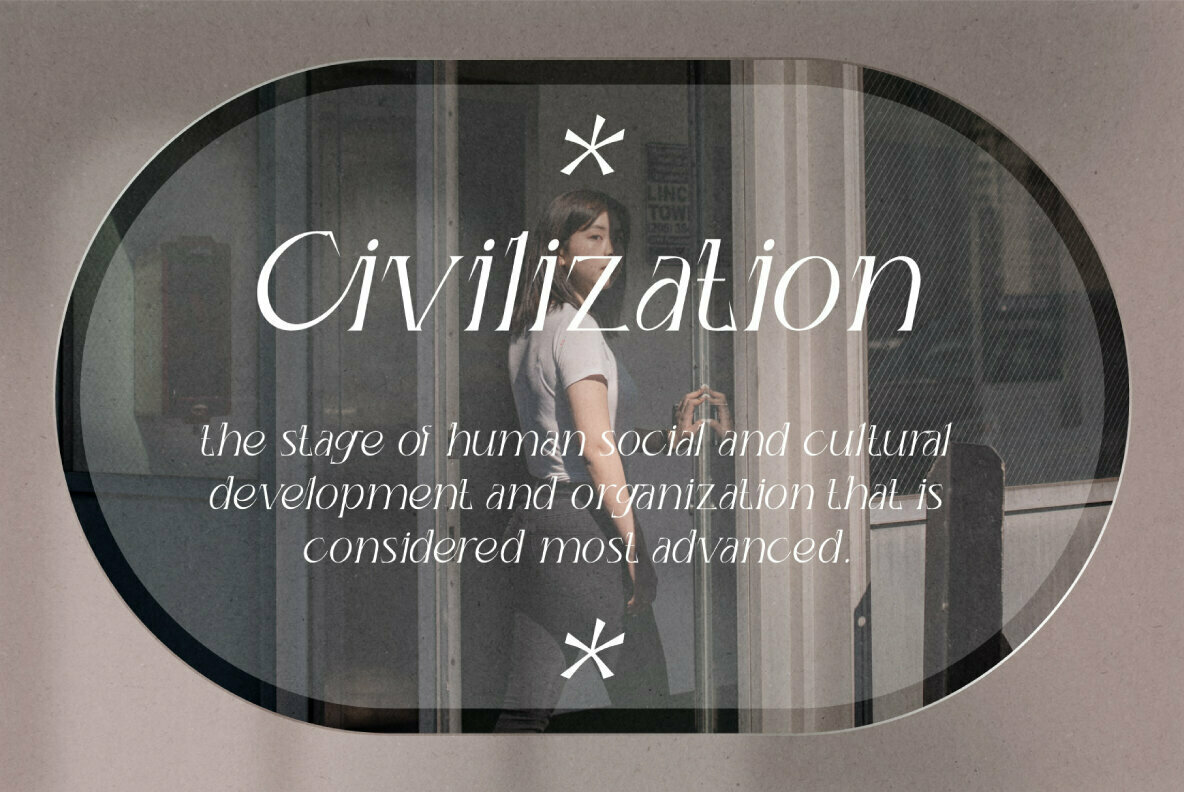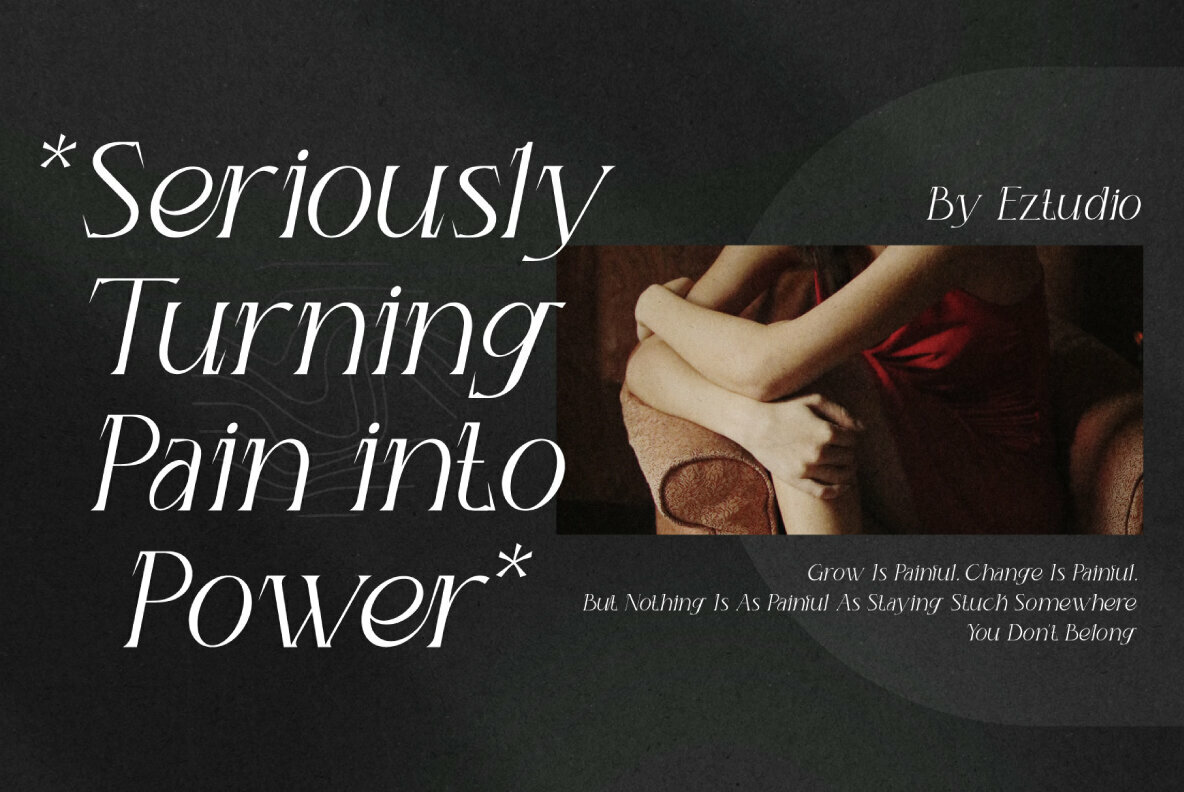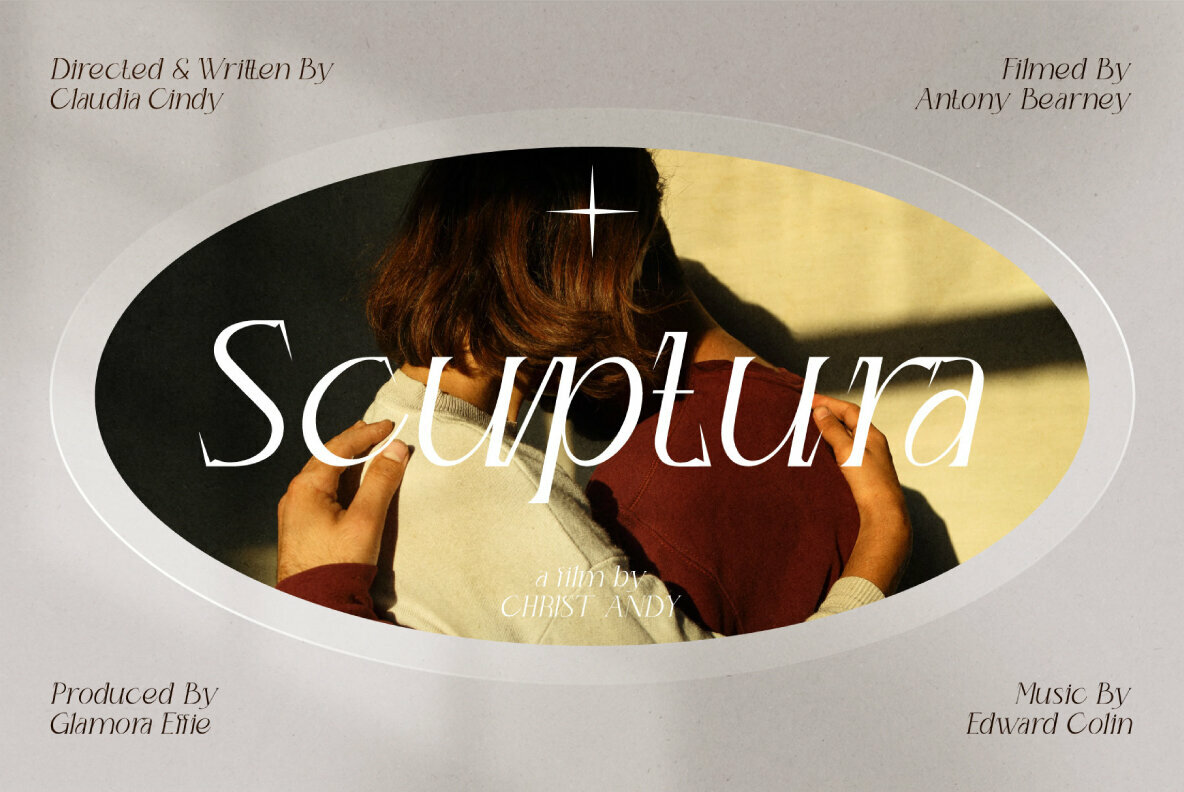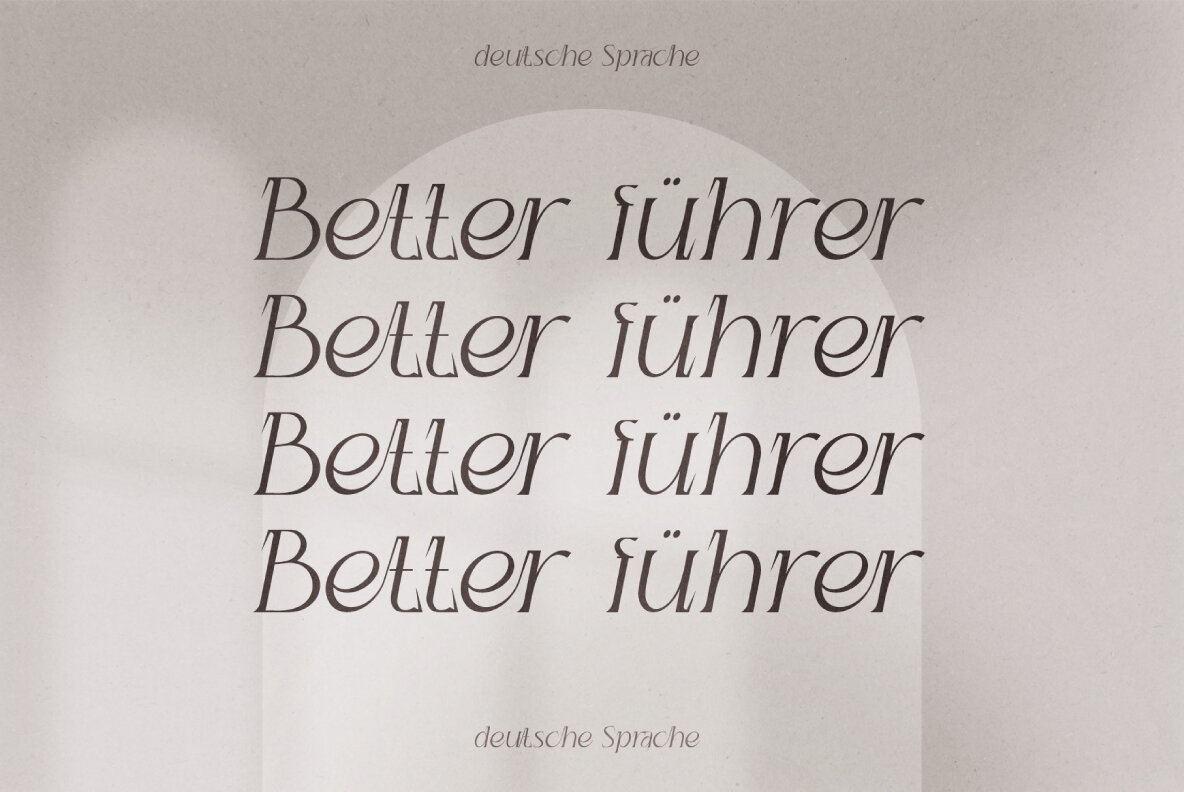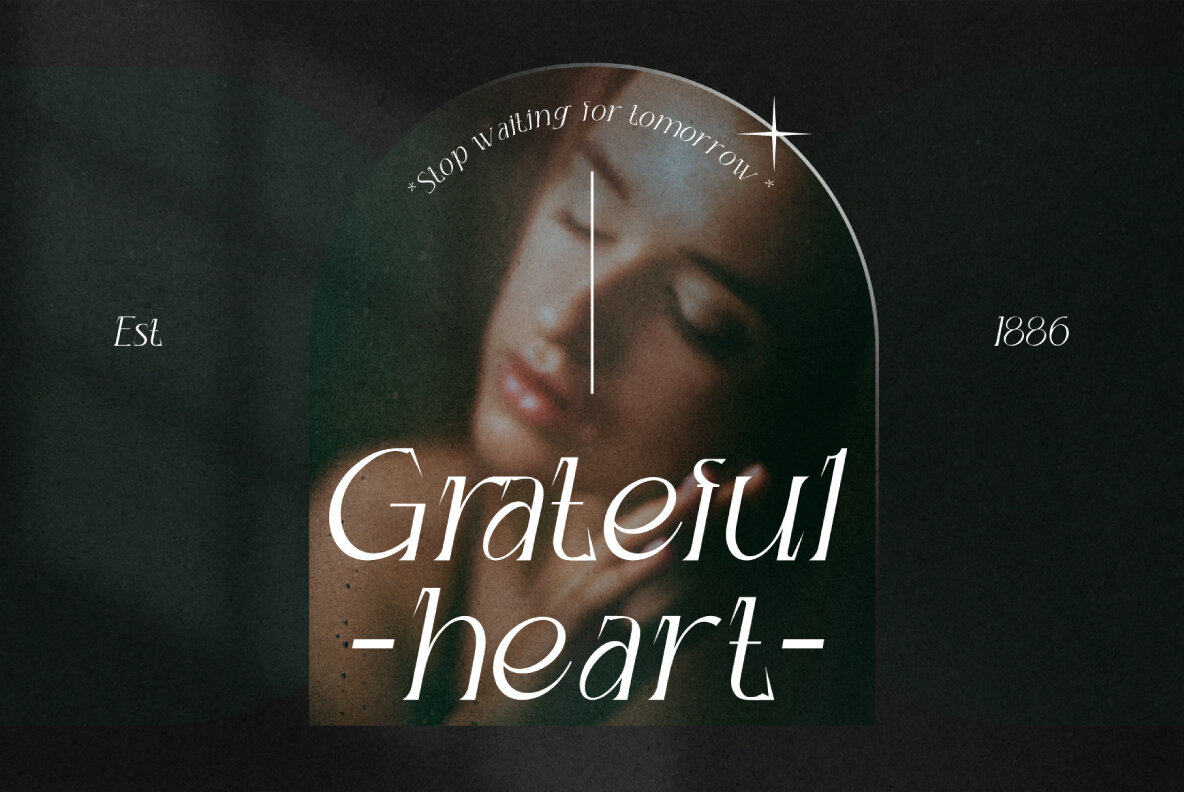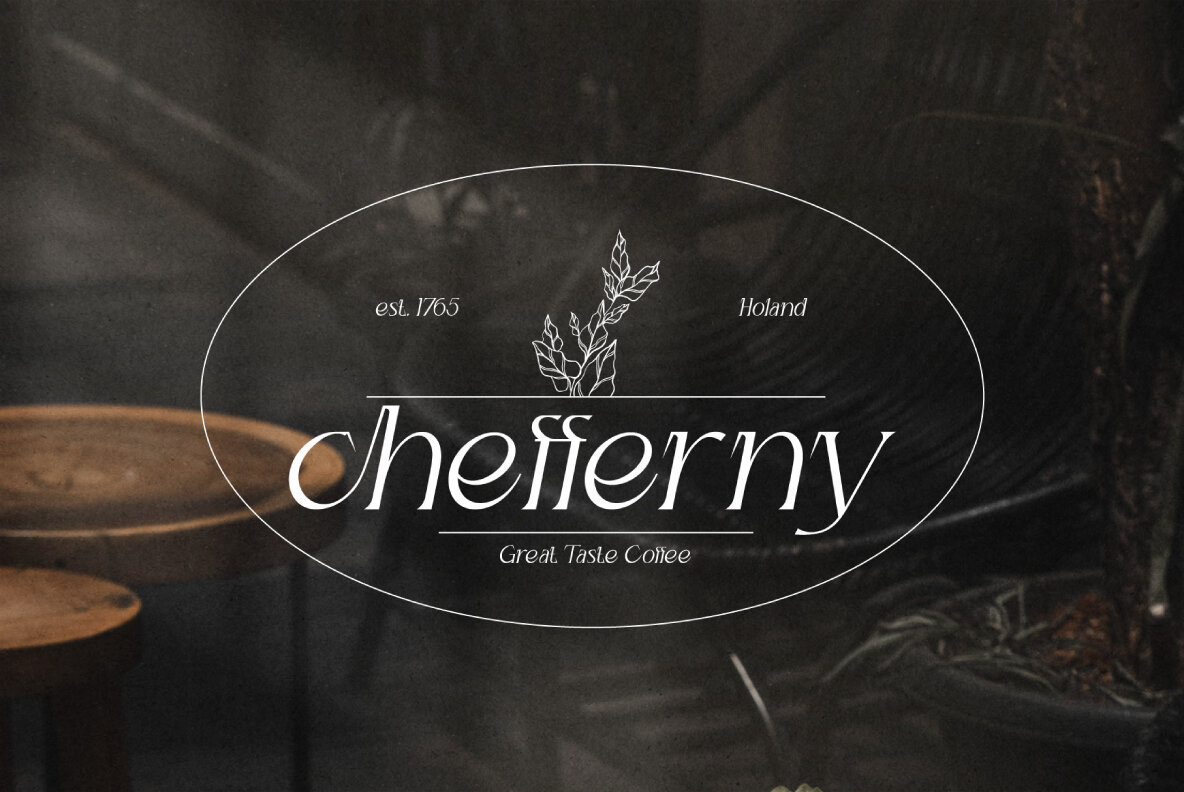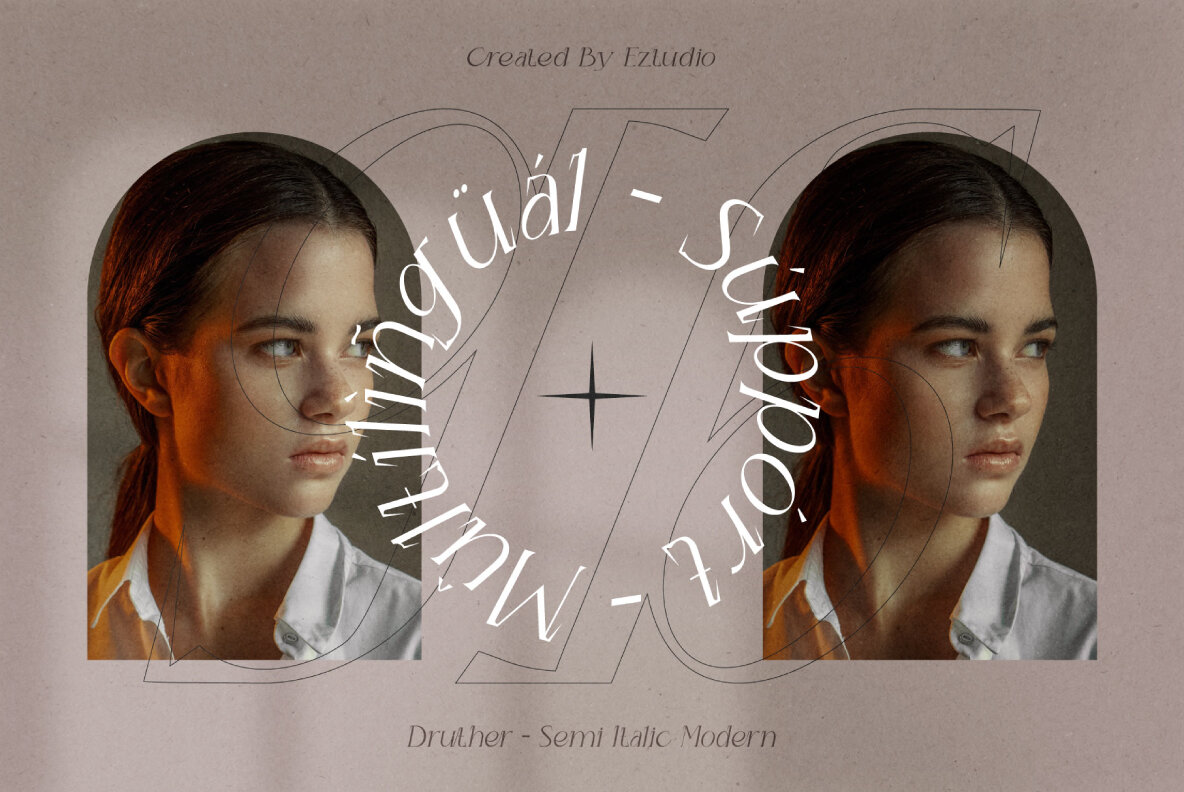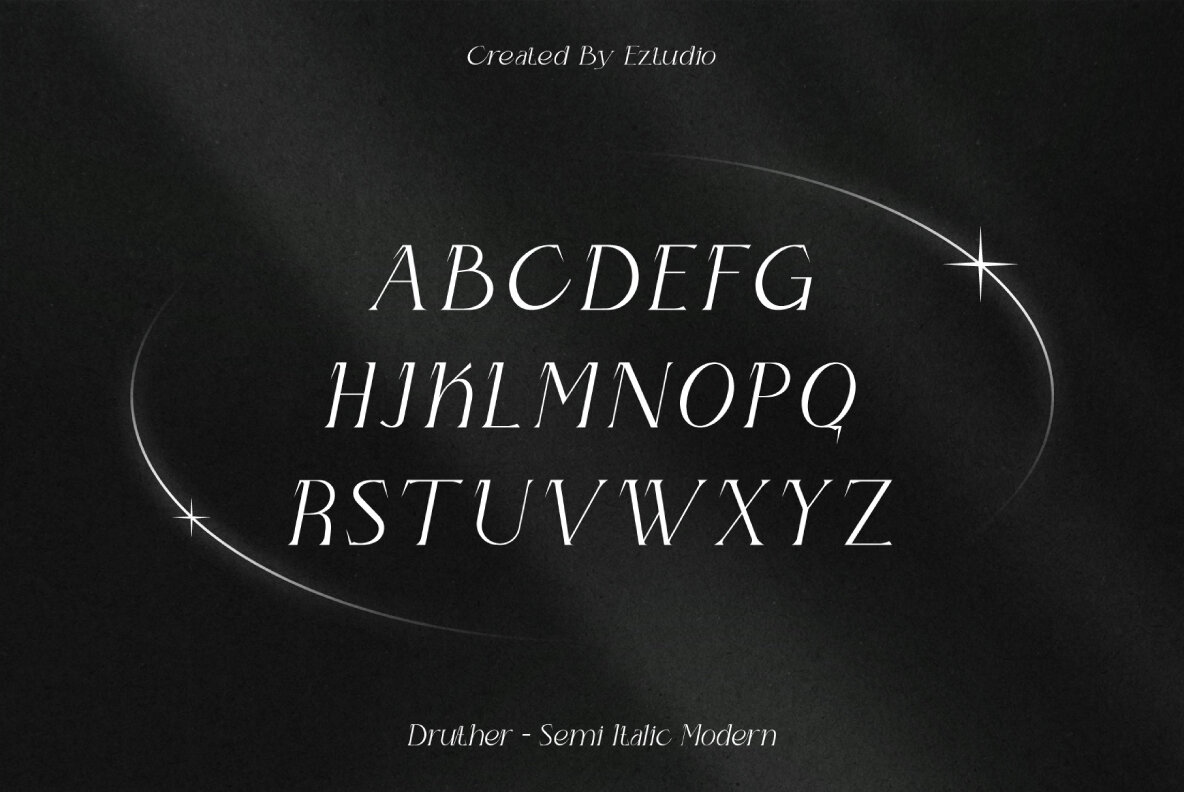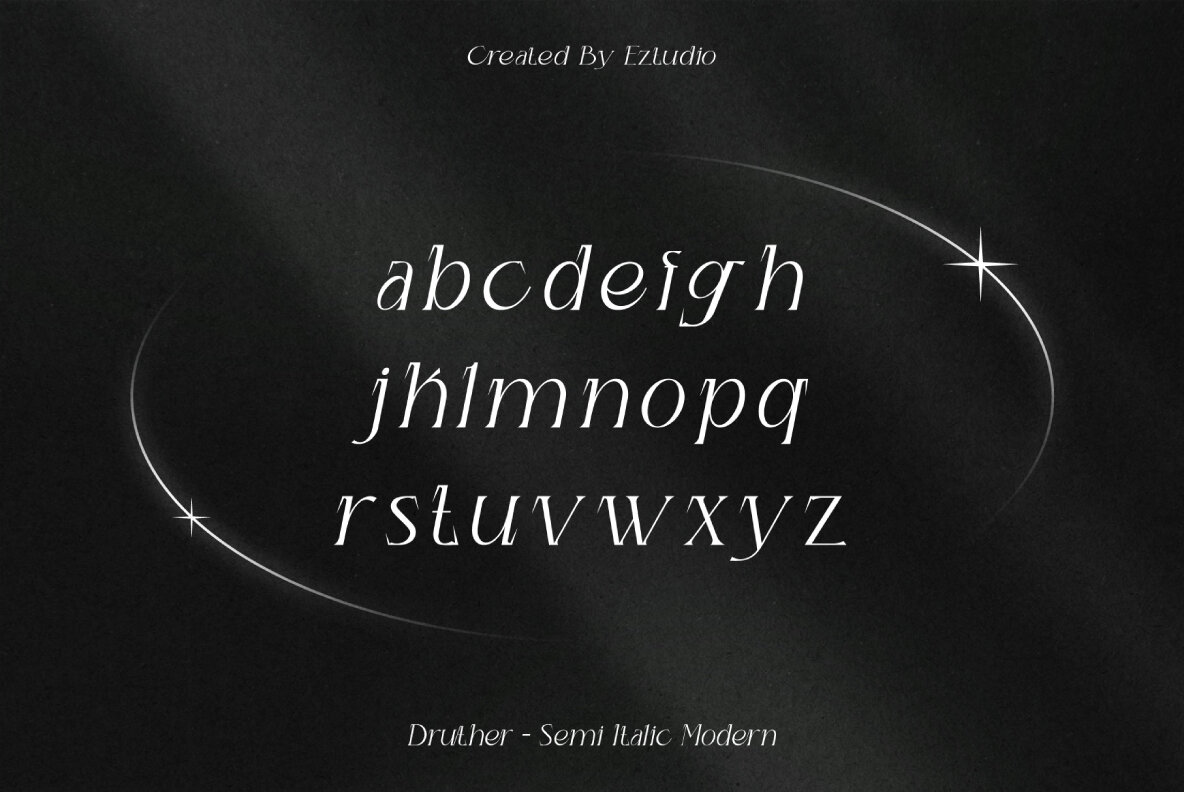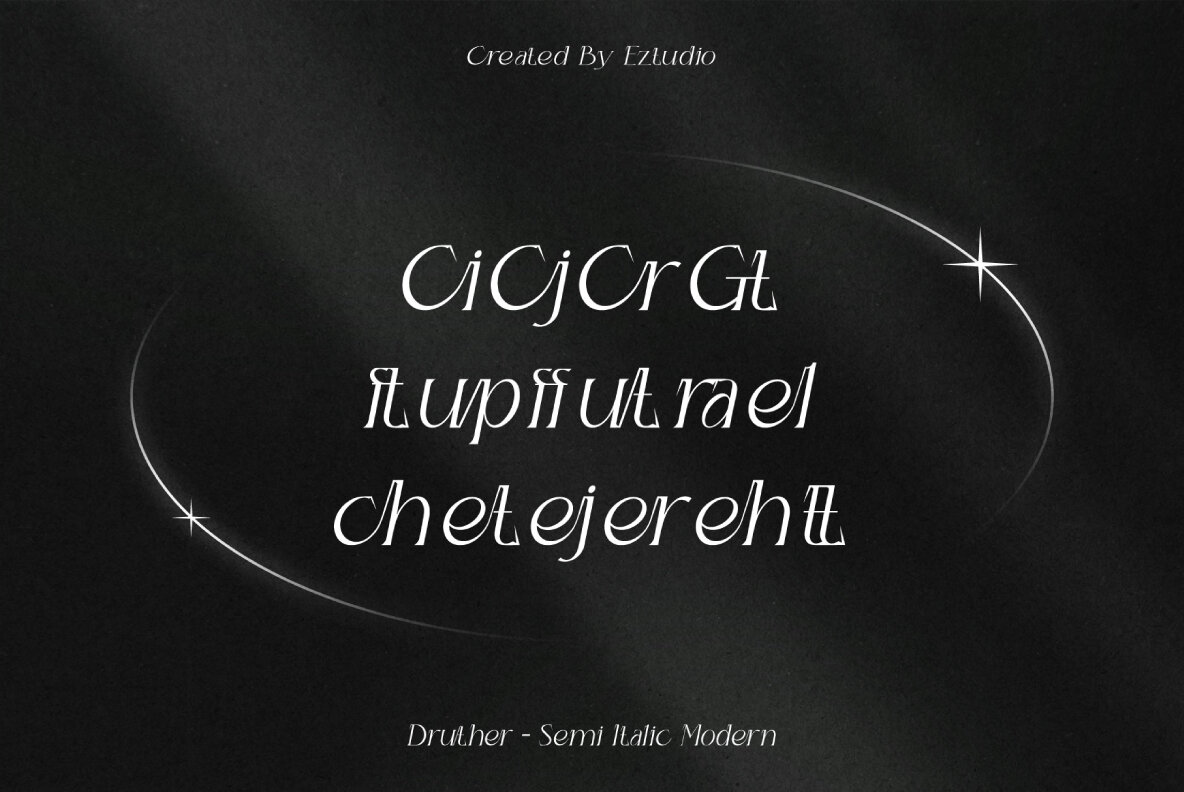
Druther Font
Druther
Druther by Eztudio Druther is a font that embodies modern style and luxury, designed specifically for creative professionals. Its comprehensive character set makes it an excellent choice for an array of projects, from striking posters to sophisticated web design and branding. The font is crafted to resonate with the distinctive needs of contemporary design, offering versatility and elegance in equal measure.Druther: A Modern Font With Luxury Appeal